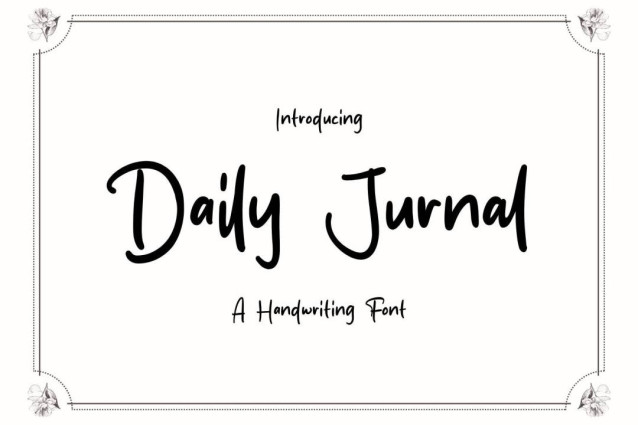
Daily Jurnal Font
Daily Jurnal Font is a simple and friendly handwritten font. Its natural and unique style makes it incredibly fitting to a large pool of designs. The only limit is your imagination!